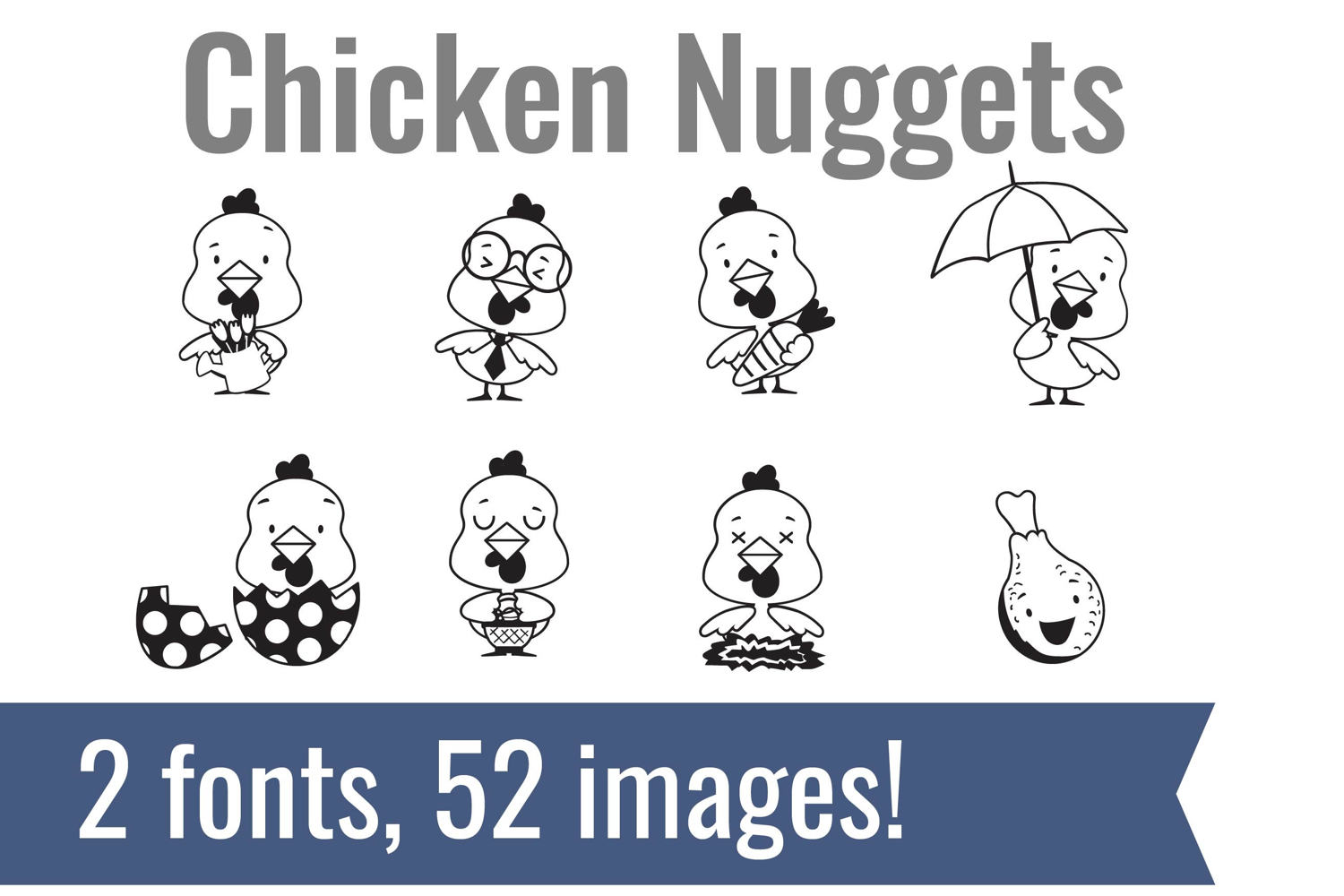
Chicken Dingbats
Unlock endless creativity with two perfectly coordinated dingbat fonts! There are two dingbat fonts in this bundle, featuring babies and Easter.